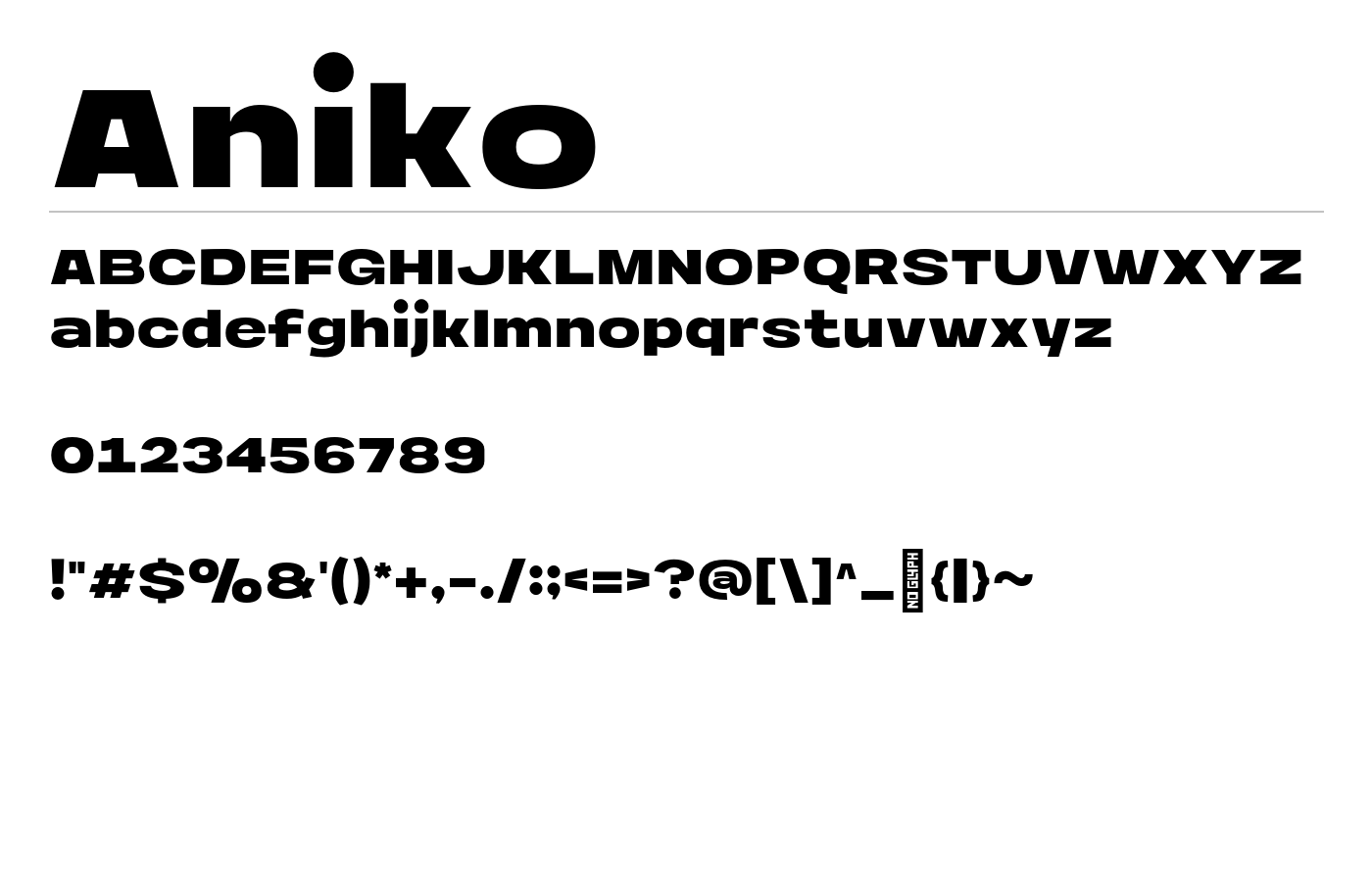
Aniko is a bold, wide sans serif font with a strong, geometric structure that feels modern and impactful. Its heavy weight and high x-height make it stand out clearly in headlines and branding, while the clean, uniform strokes offer a confident and professional tone. This font works best for attention-grabbing designs like logos, posters, and web headers, where boldness and clarity are key.
Aniko Font
About Aniko Font
| Font family | Aniko Font |
| Languages supported | Latin, Symbols, Thai |
| Designer | Moch Fitrah Hidayat |